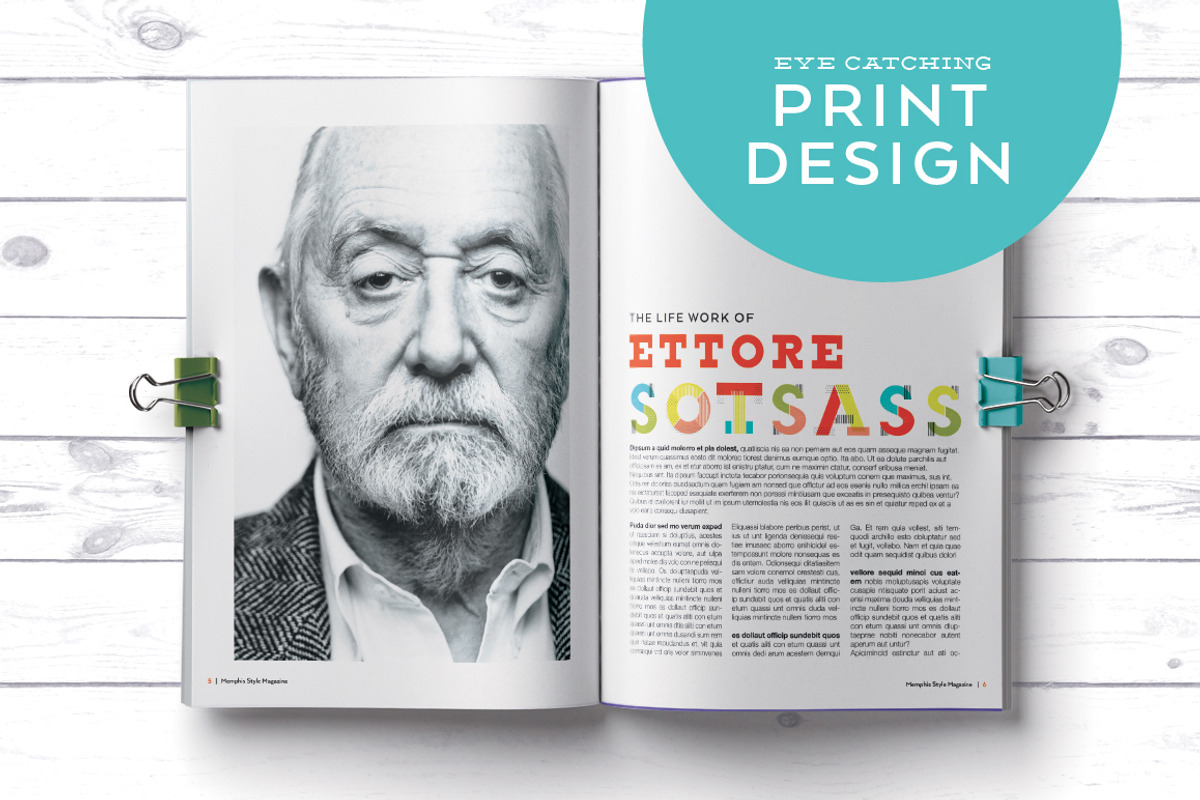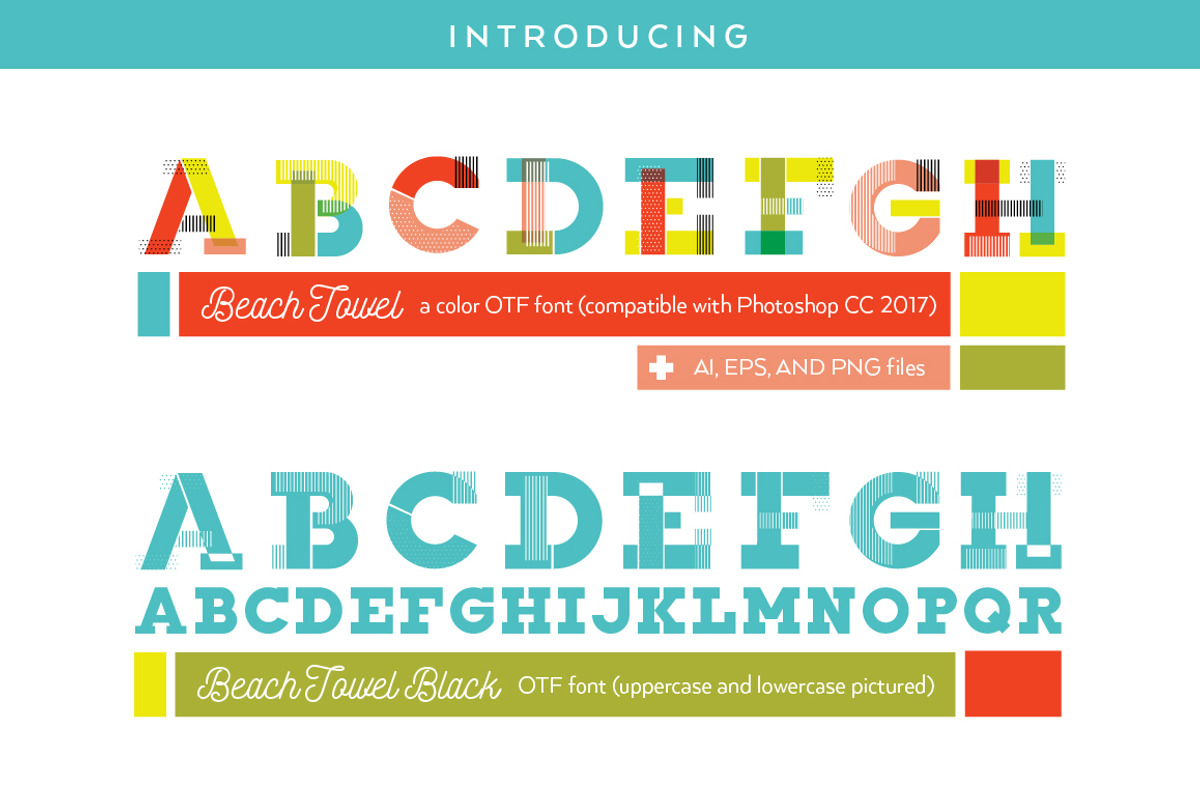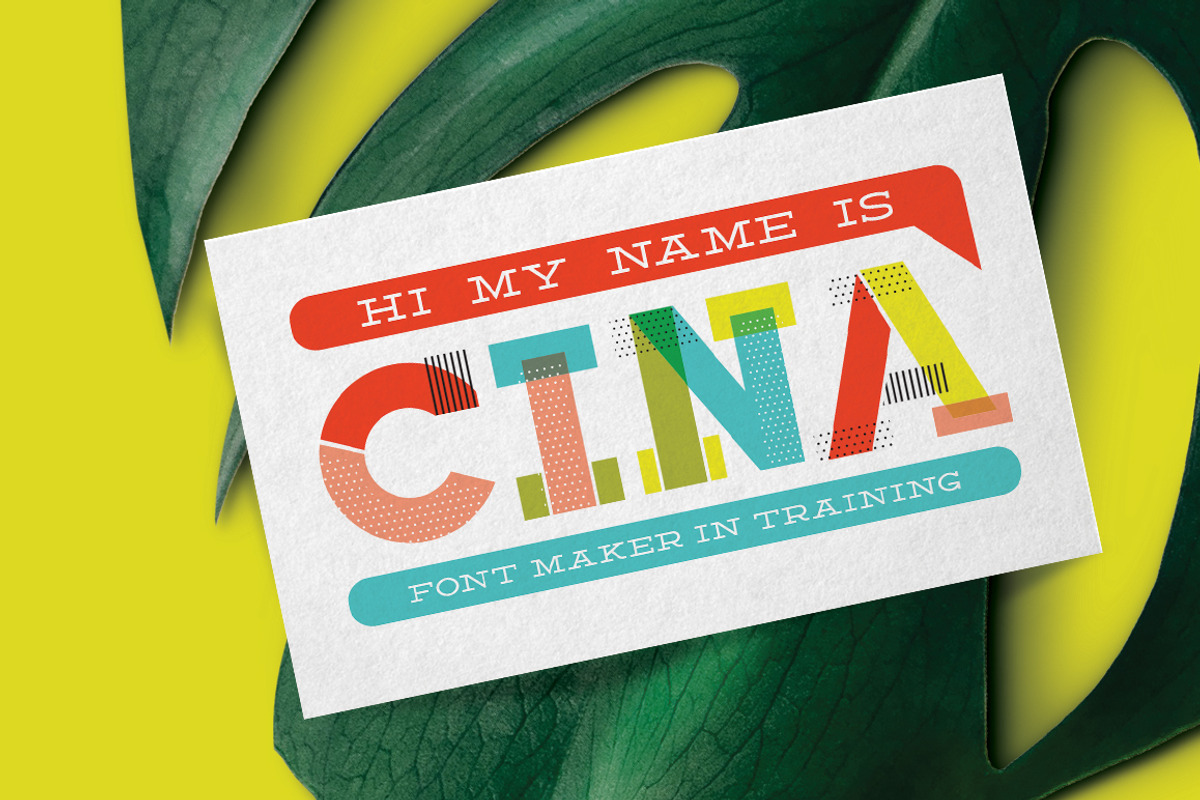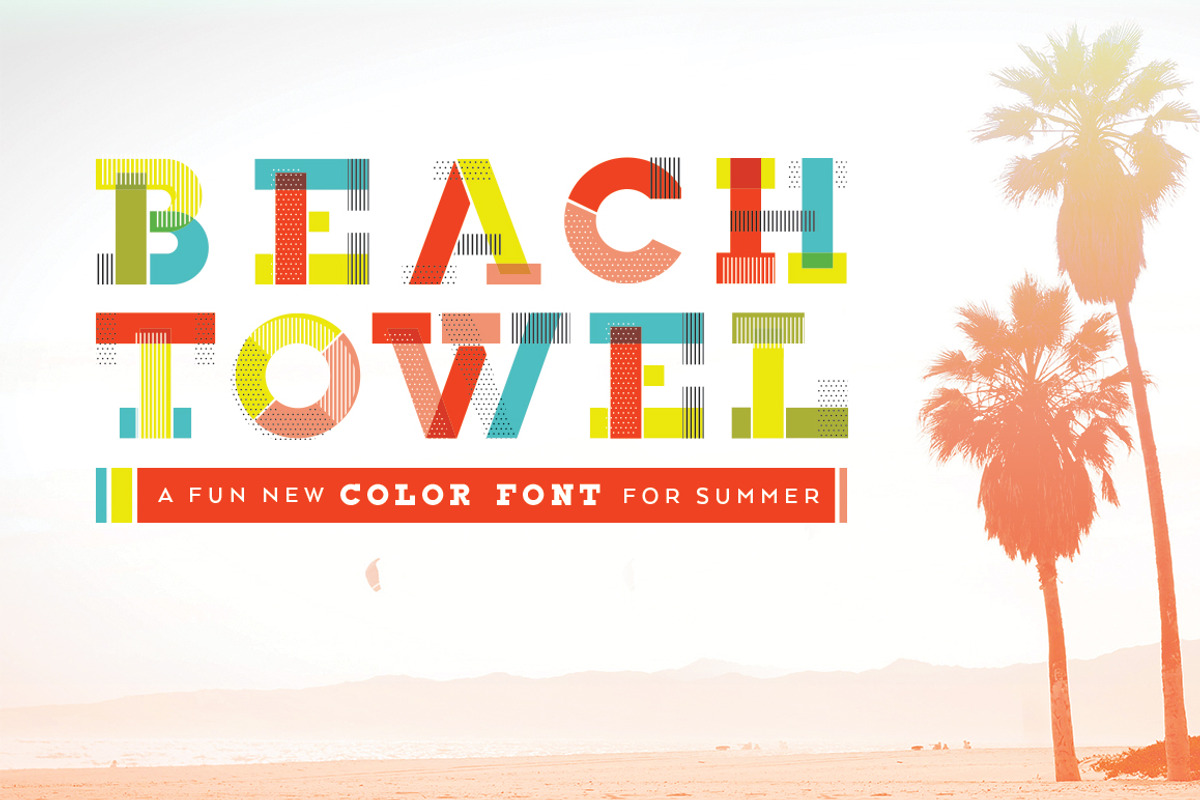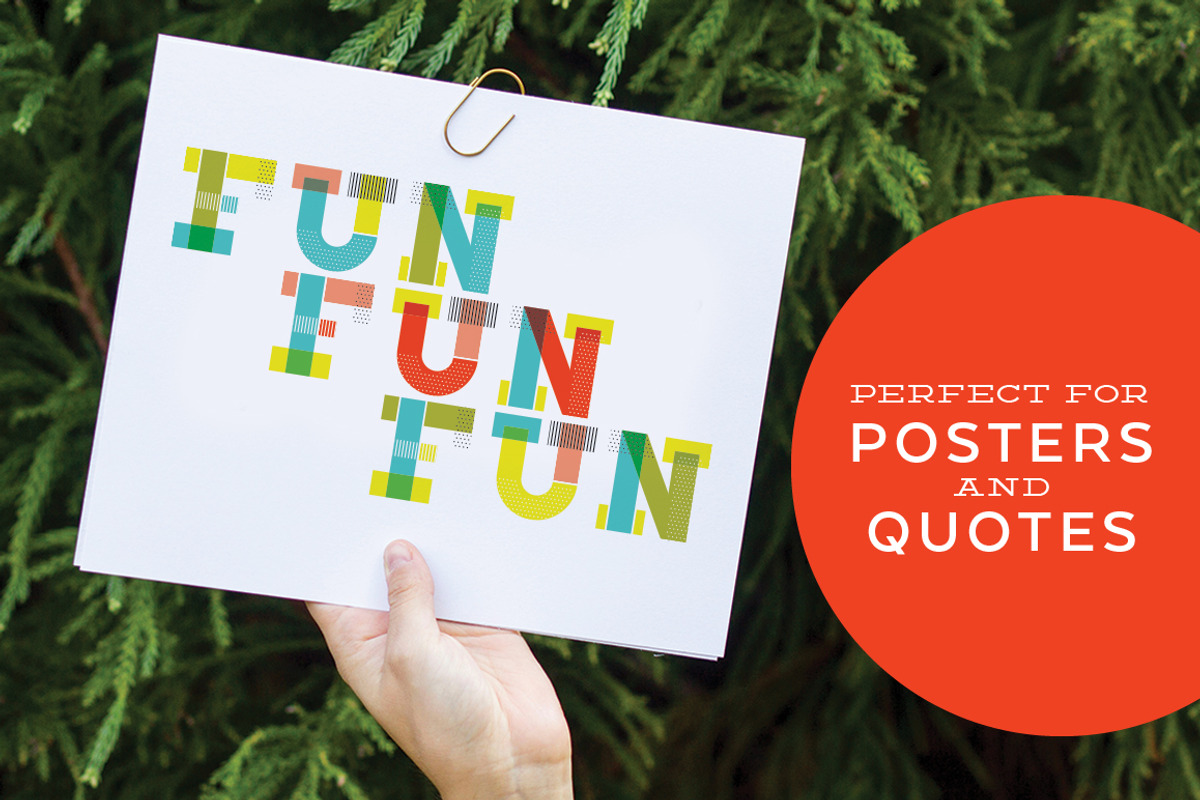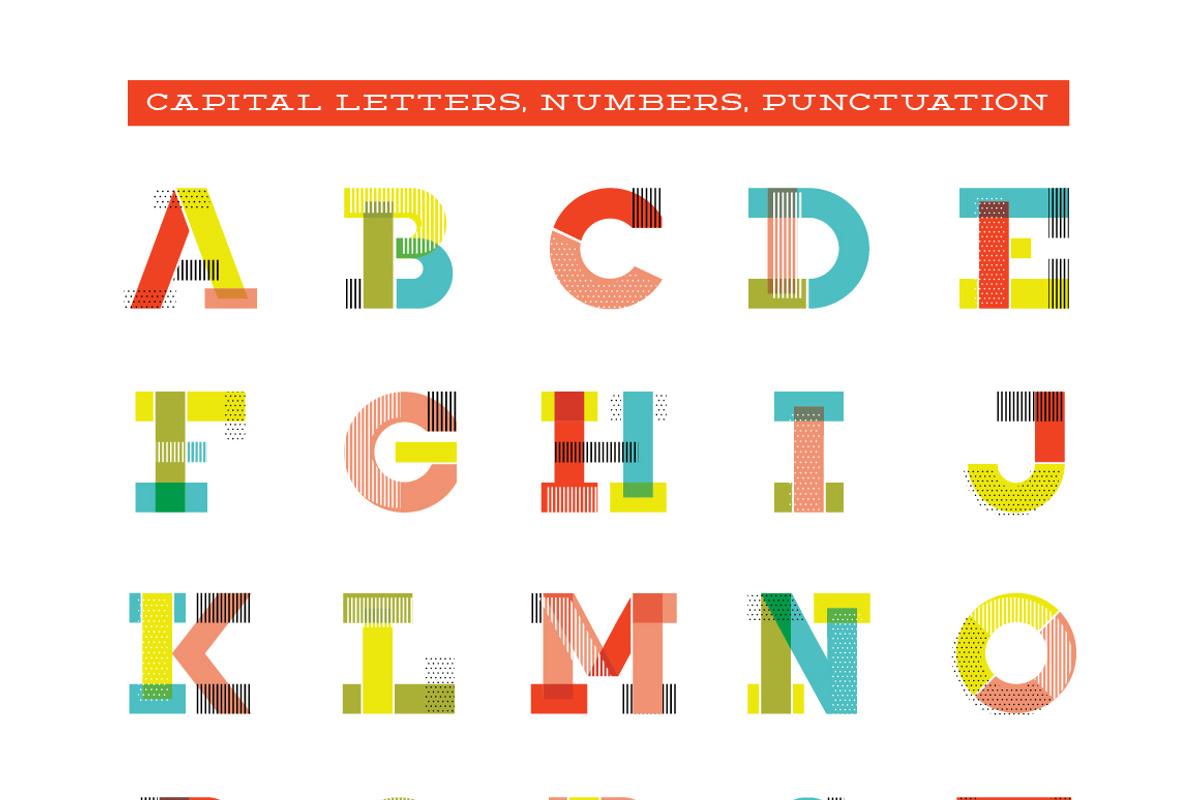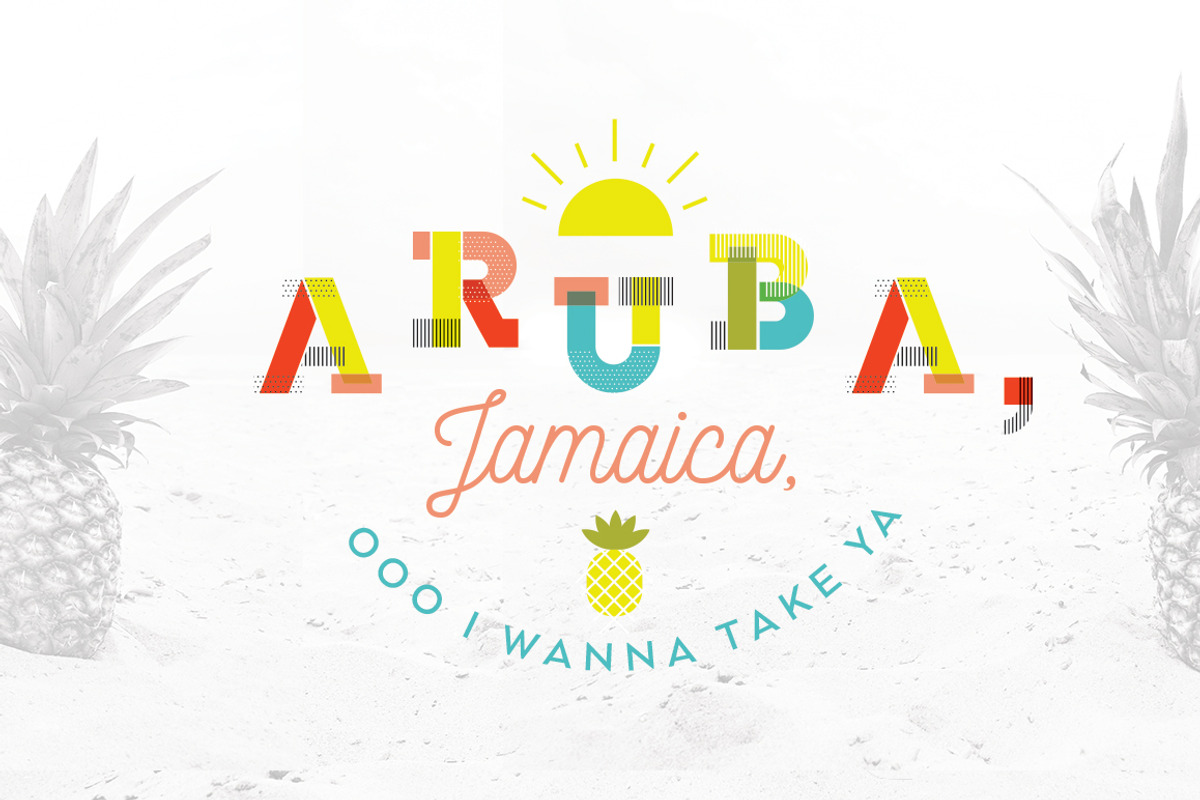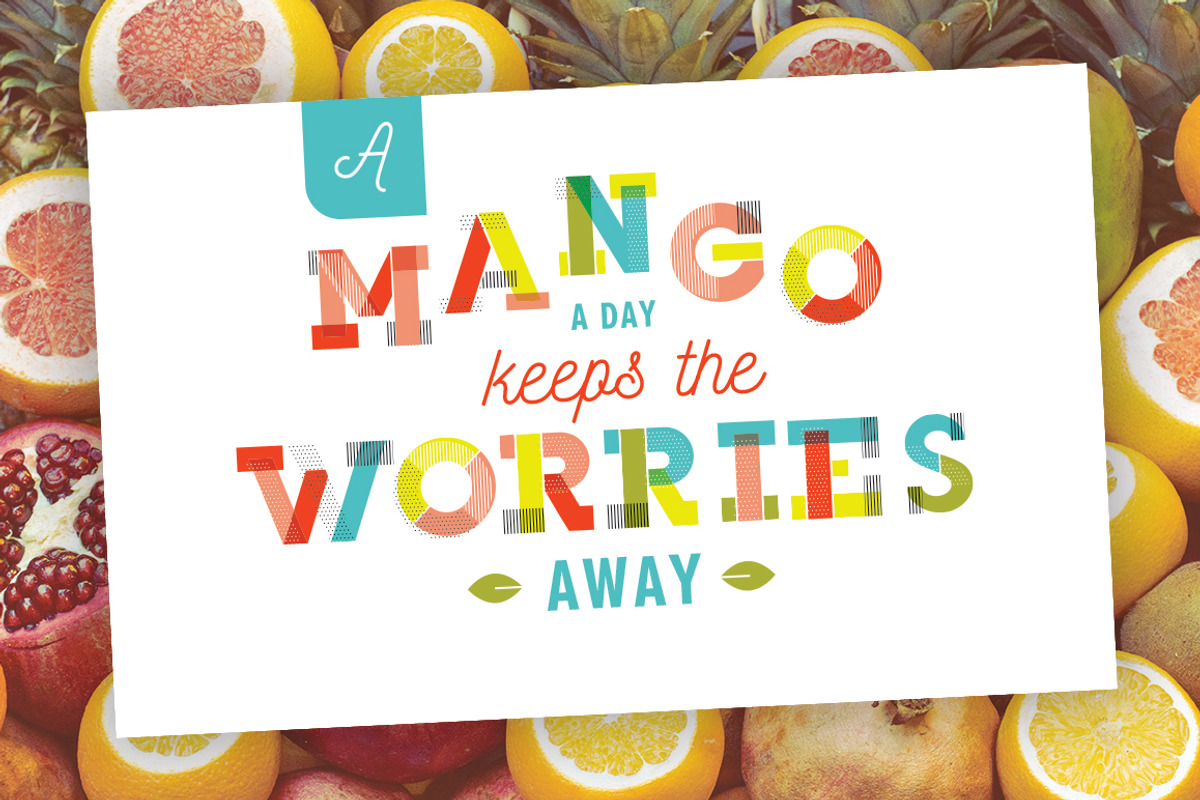
"Beach Towel" Color Font
- Beach Towel Black, a OTF font usable across a wide range of applications. The uppercase of this font includes the pattern overlays, while the lowercase is solid.
- The font includes uppercase letters, numbers 0-9 and punctuation . , ! ? #
This bright, unique font would be the perfect choice for an eye-catching logo, titles for publication design, web header images, stationery, and more! I especially enjoyed arranging the quotes to make the title images, and you could use this font to make loads of posters and prints!